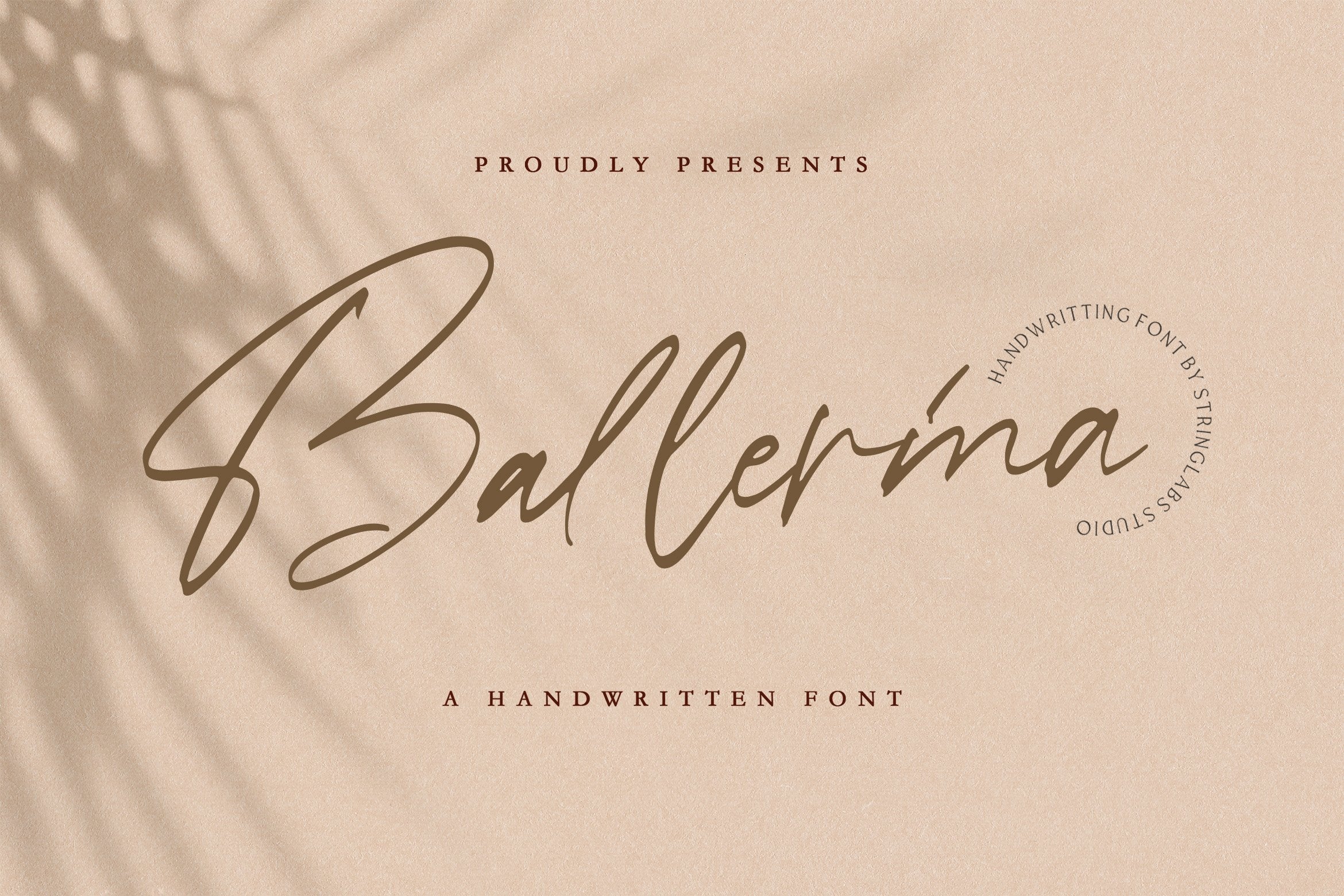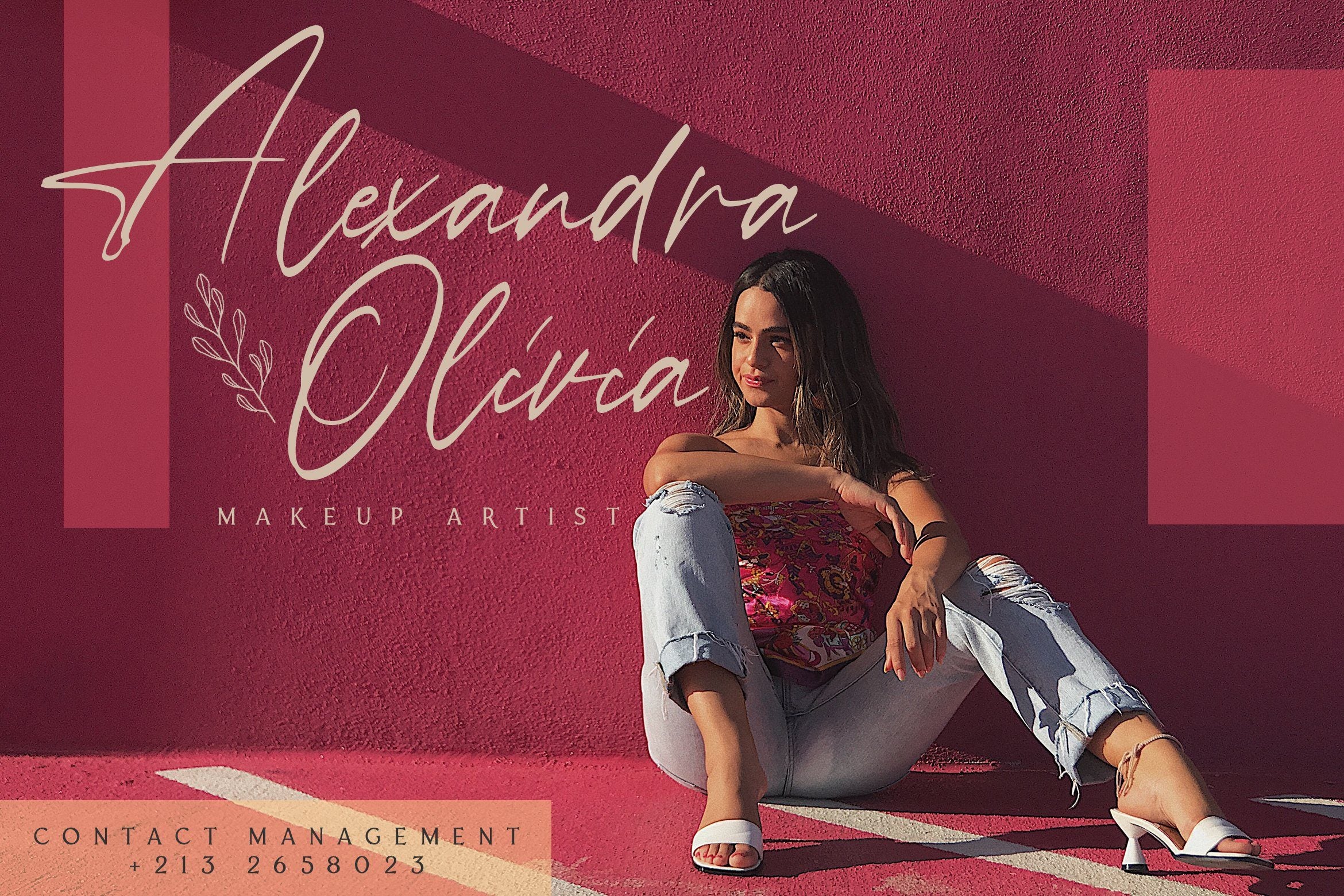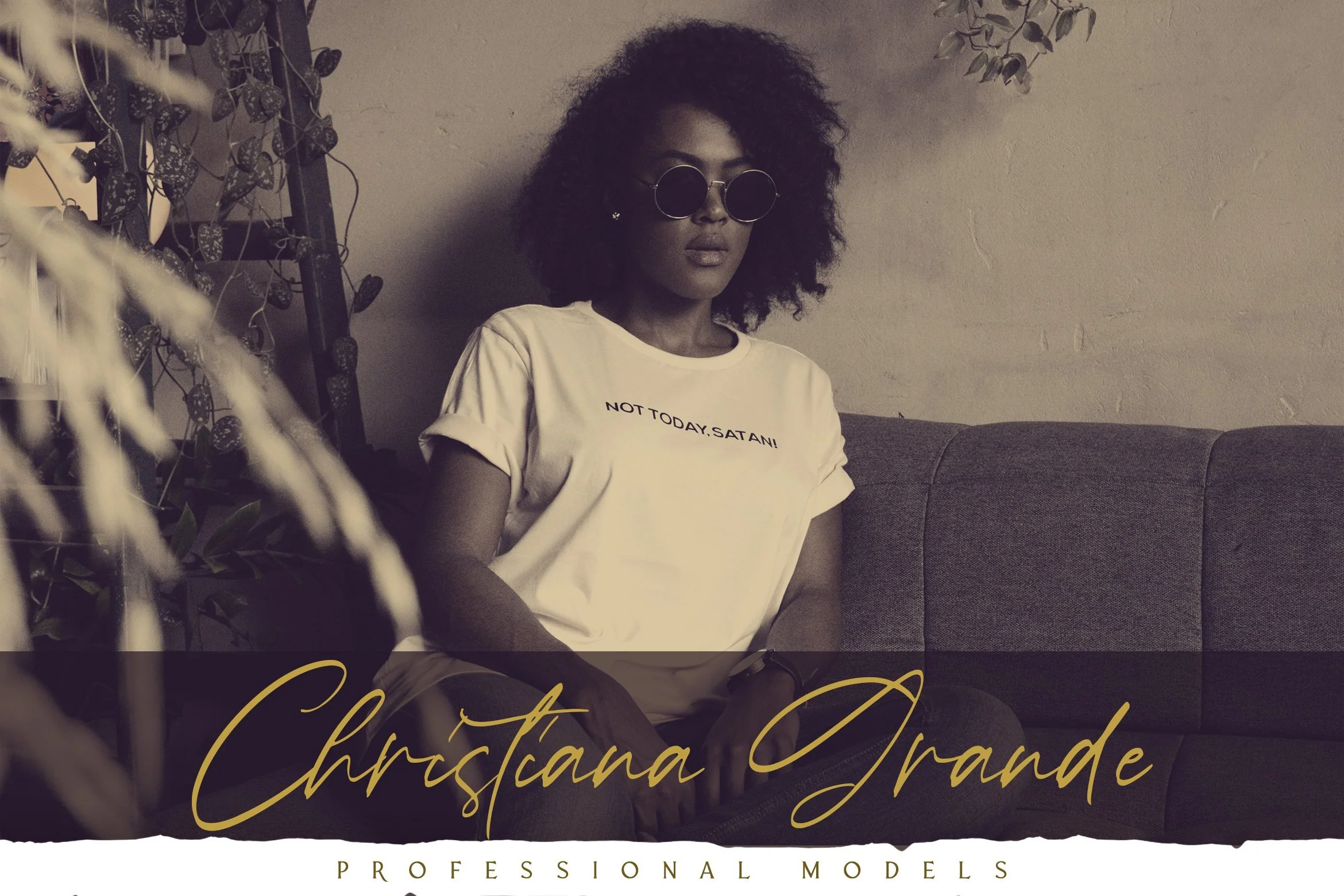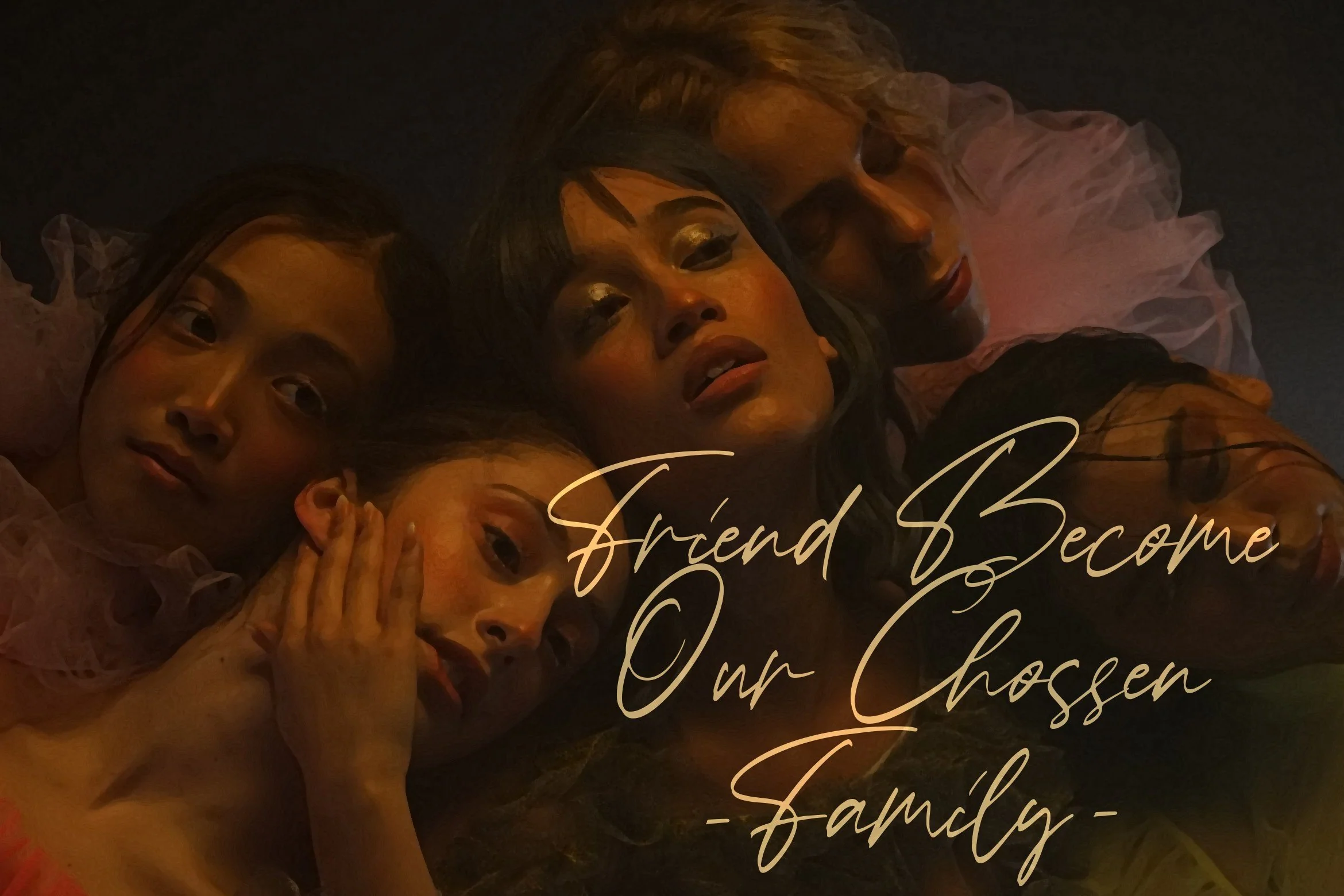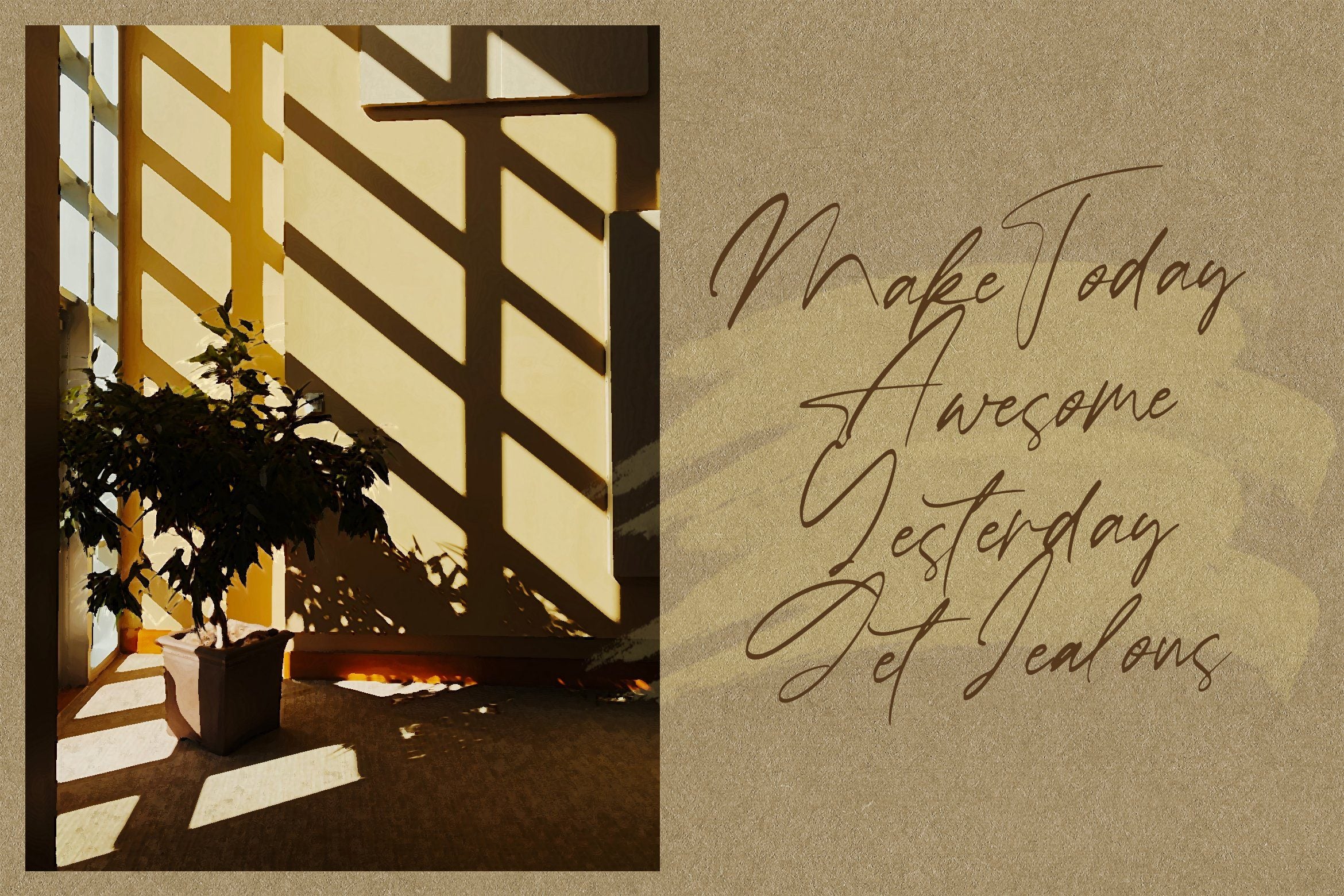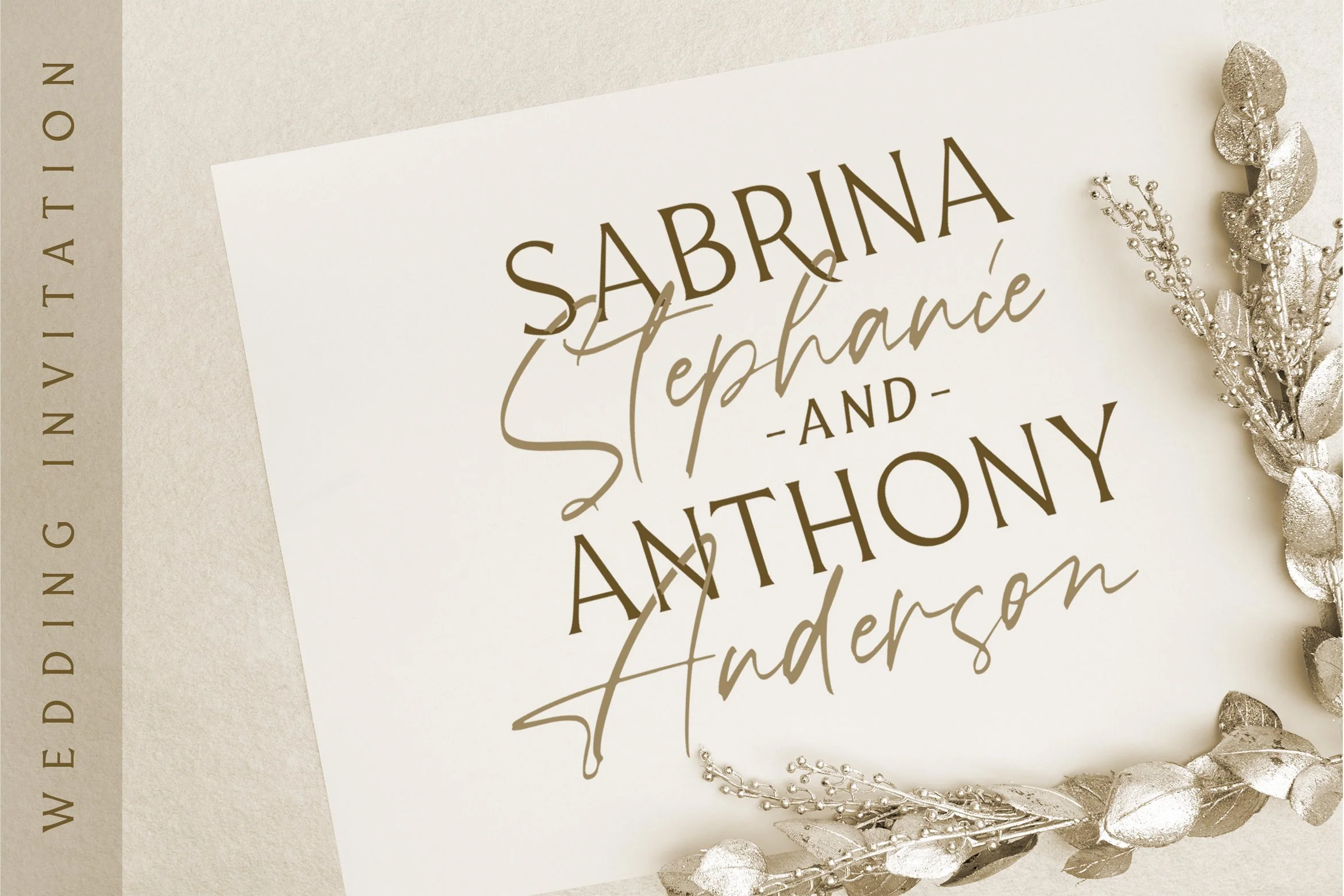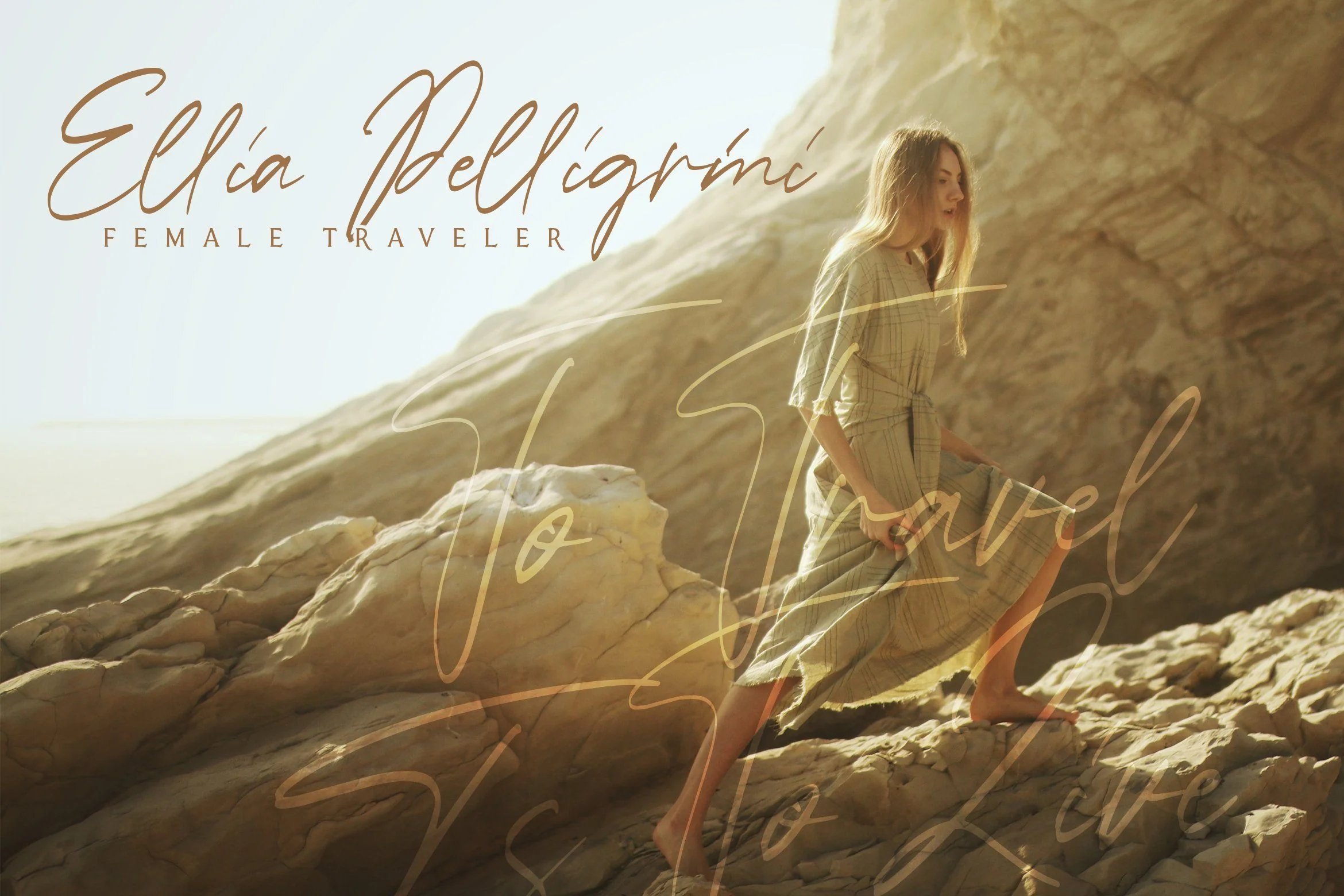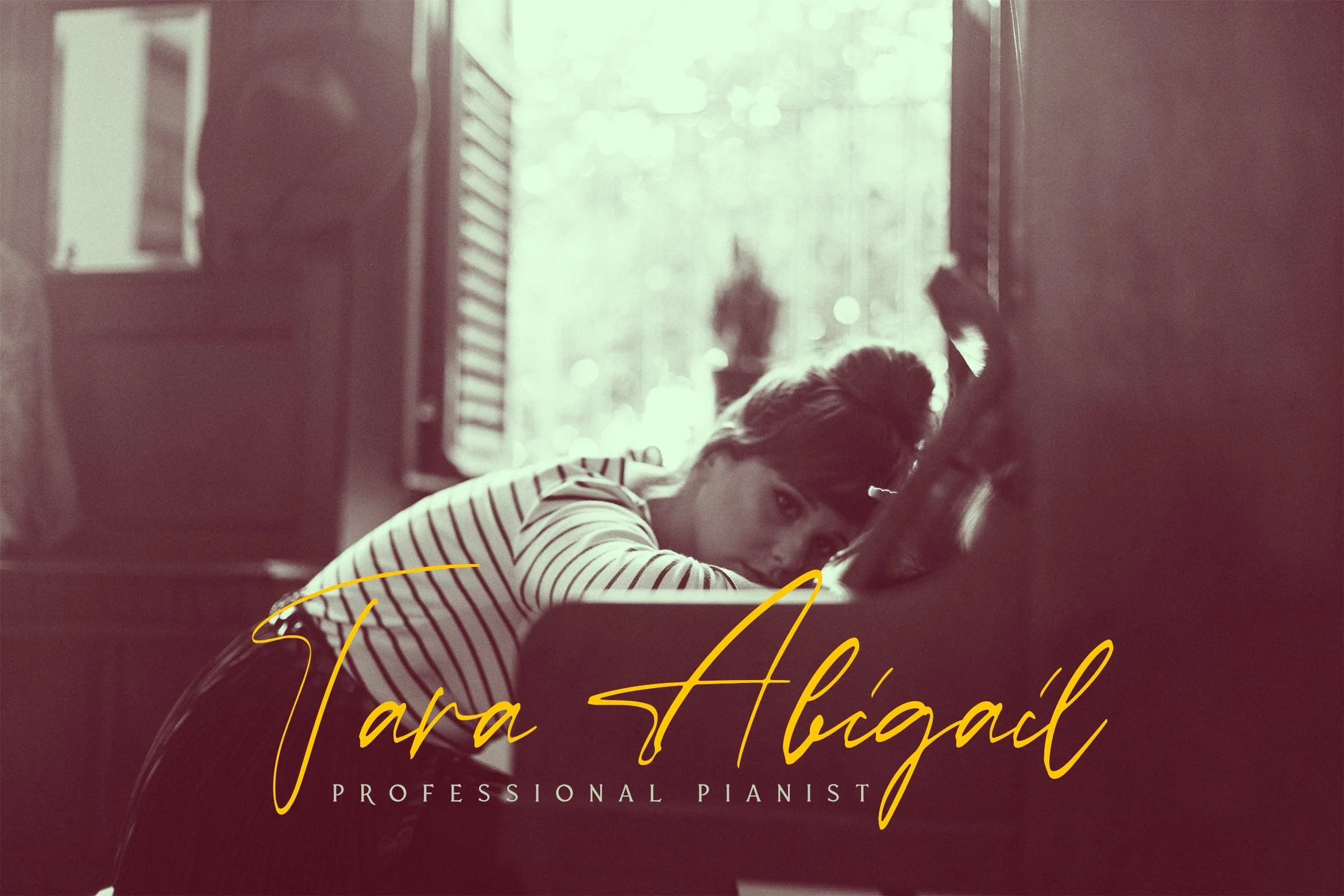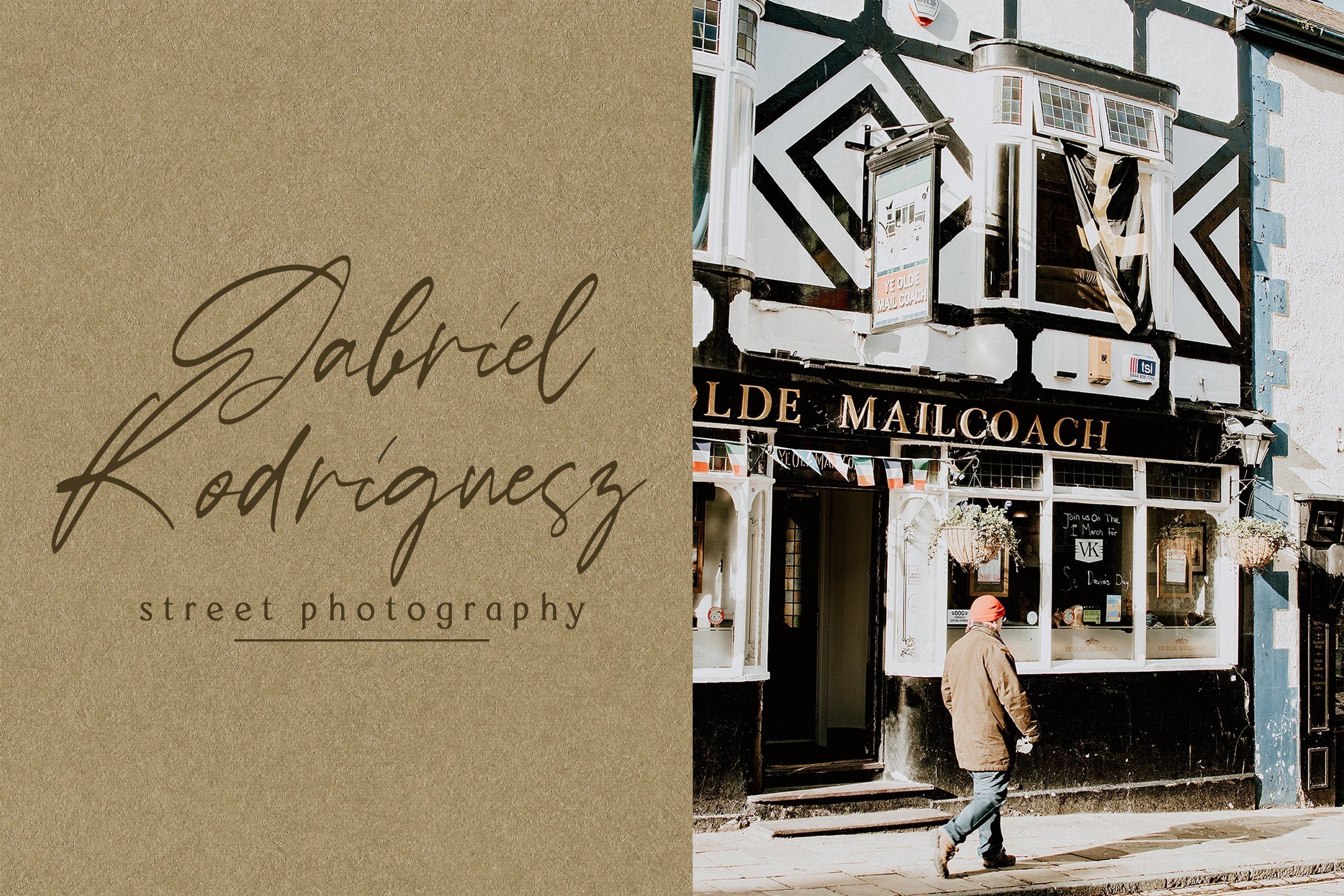
Ballerina - Signature Script Font
Introducing Ballerina - Signature Script Font
Ballerina is a Signature Script Font with Modern Style. This font is perfect for fashion brand, wedding invitation, business card, logo brand, signature, and also calligraphy.
This Font Template contains Classy, Elegant, Creative, Cool and has a Unique Concept.
Introducing Ballerina - Signature Script Font
Ballerina is a Signature Script Font with Modern Style. This font is perfect for fashion brand, wedding invitation, business card, logo brand, signature, and also calligraphy.
This Font Template contains Classy, Elegant, Creative, Cool and has a Unique Concept.